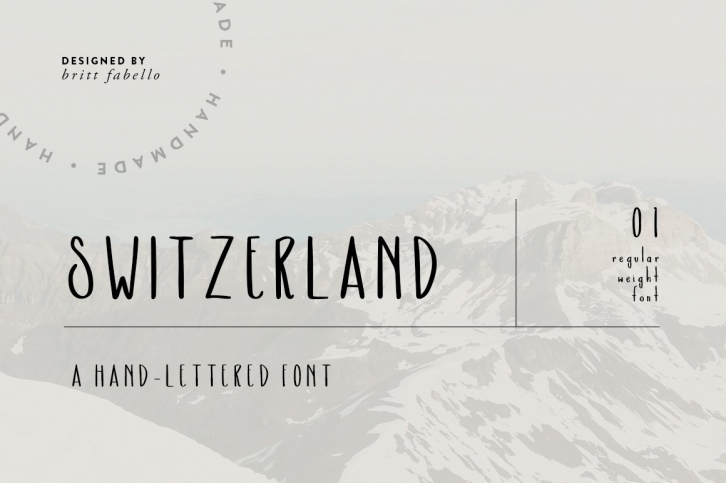
THE FONT STORY // The Switzerland handmade font was inspired by a spring trip to the Alps. I spent time wandering around Lucerne and hiking in the Lauterbrunnen Valley. Being immersed in nature with such dramatic landscapes inspired me to create a font with low valleys and high peaks to reflect the beauty of Switzerland.
USE FOR THIS FONT // With its tall presence and organic form, this font works best as a header font or for smaller bodies of text. It is perfect for projects that need natural looking font like blog posts, social graphics, event posters, and perhaps even a logo as displayed. I recommend small to medium spacing to let the individual letters do their thing while also working well as a whole. Adjust and play around with it to get it just where you like it!
ABOUT MY FONTS // All fonts are originally created by hand. This one was made with a brush pen. I believe strongly in the handmade design process. It brings a truly unique end result to the table. After the handmade process is complete, the font is scanned in, converted to vector, and made into a working typeface thanks to Fontself.